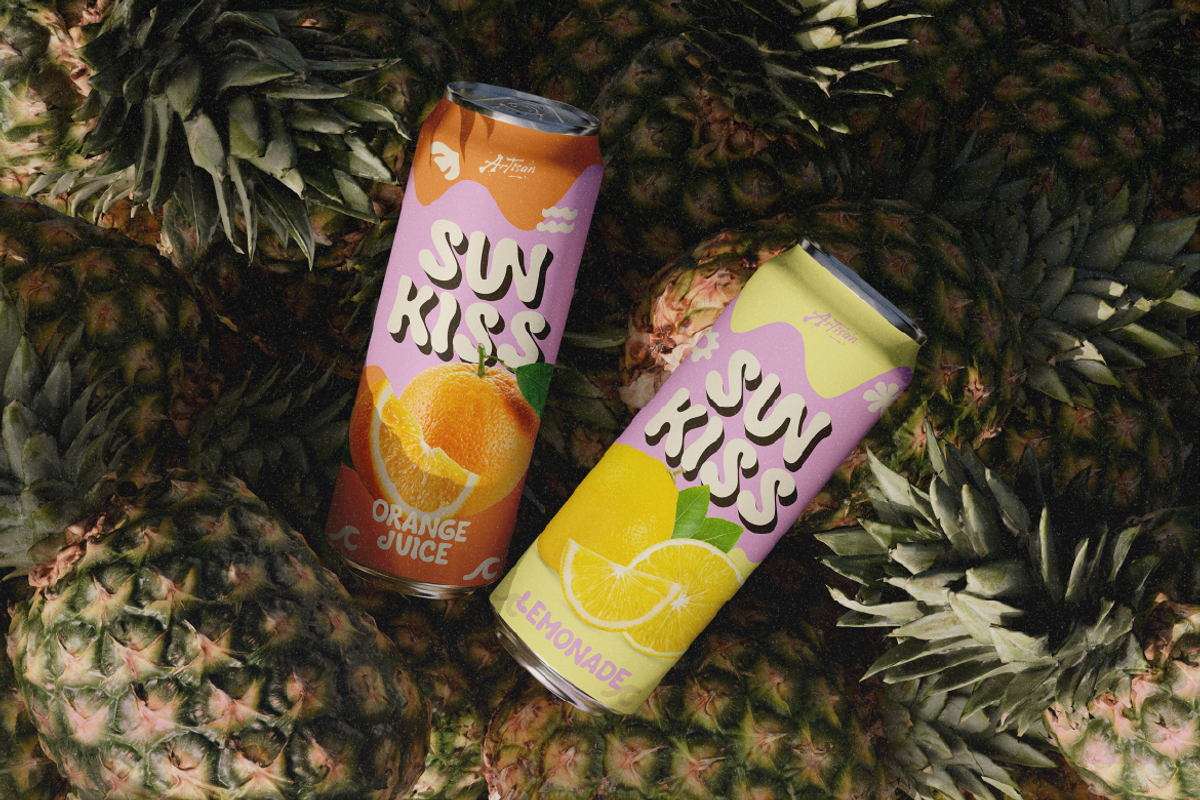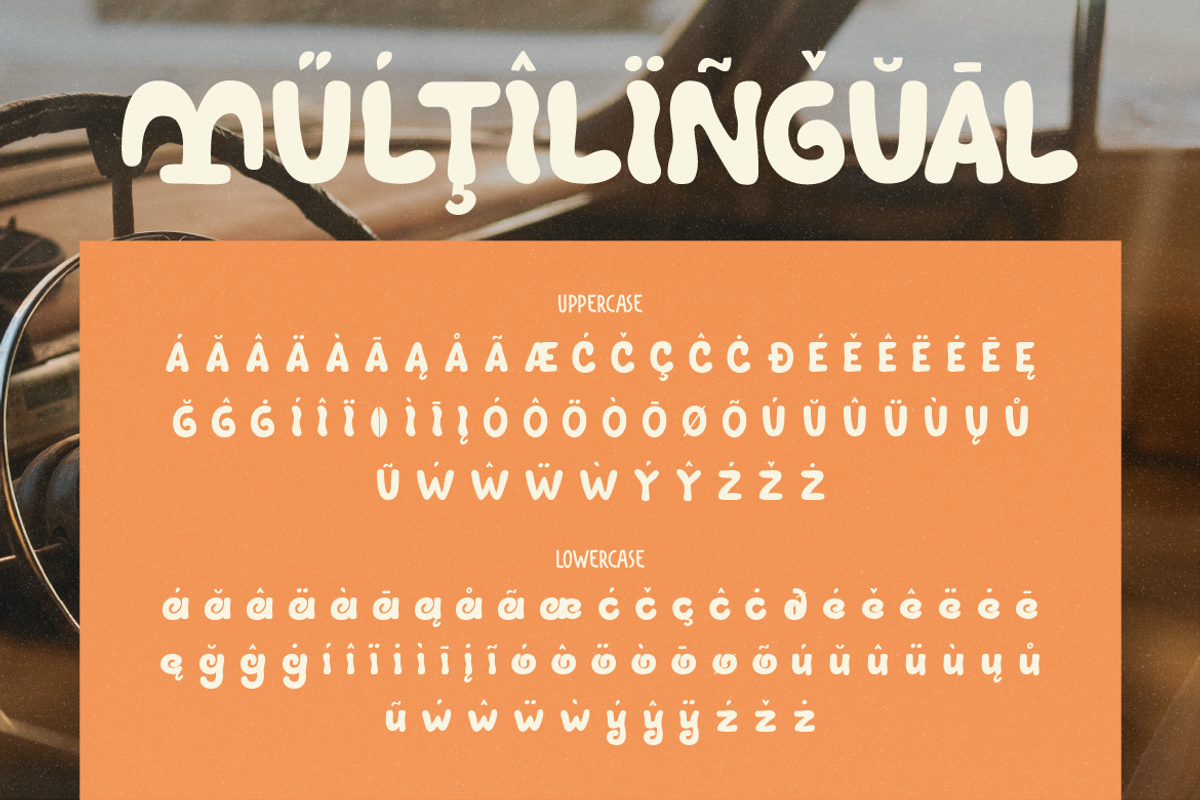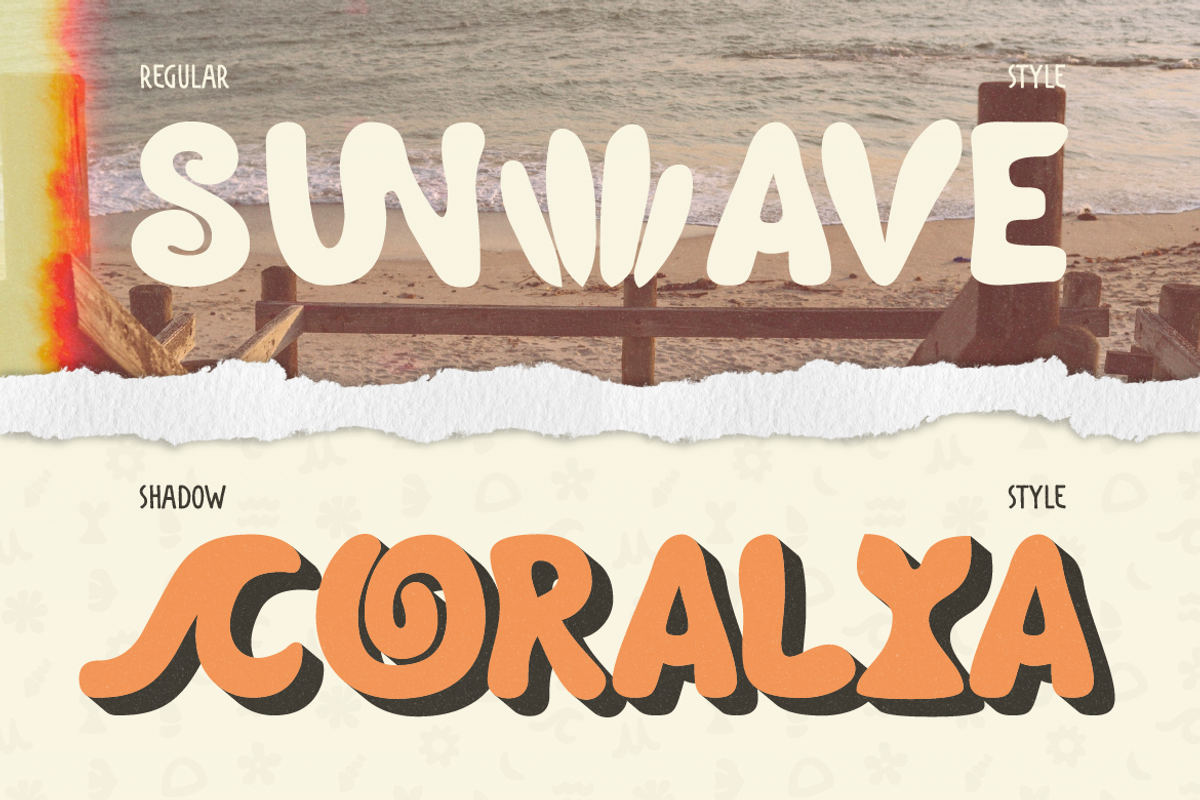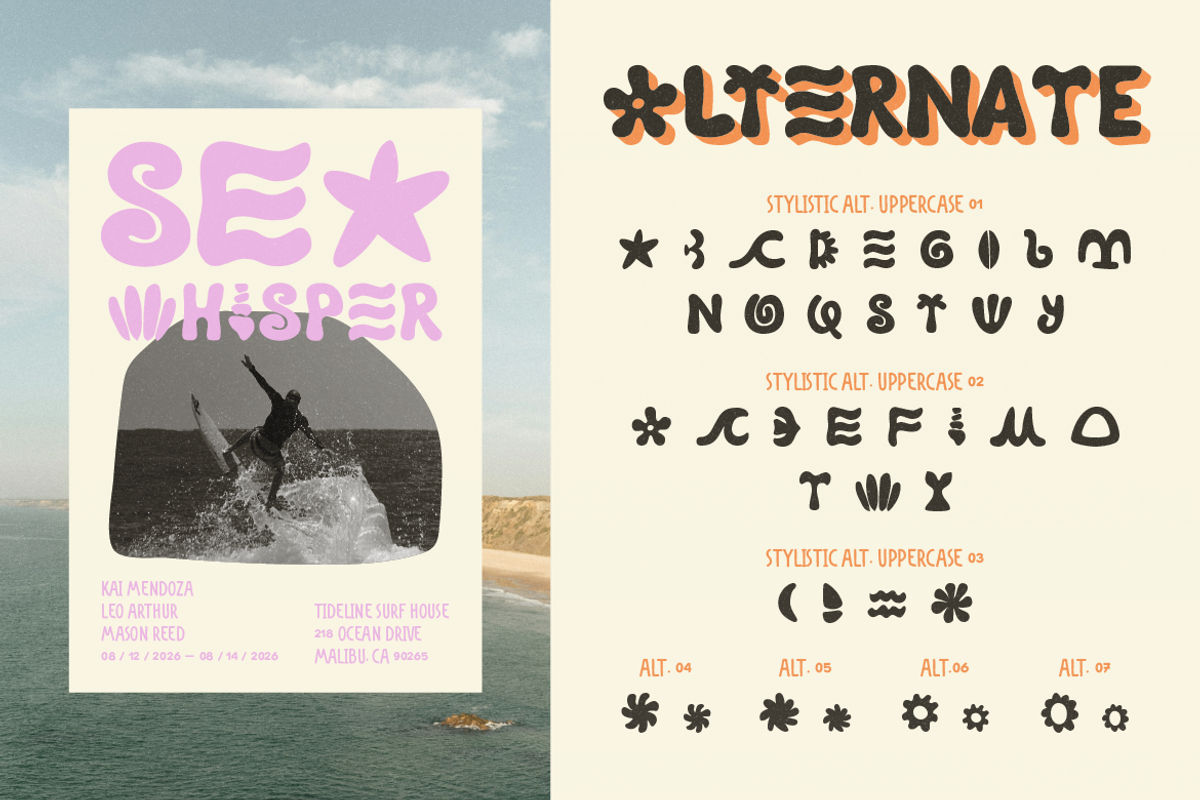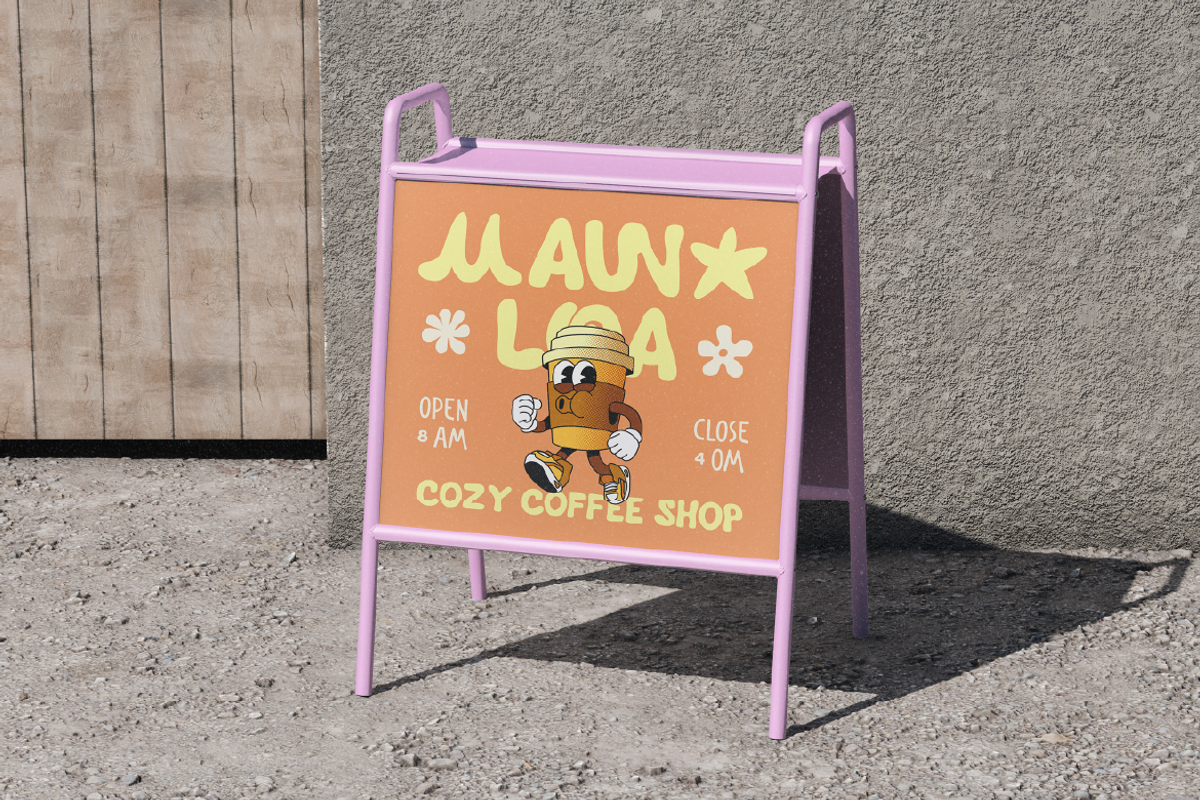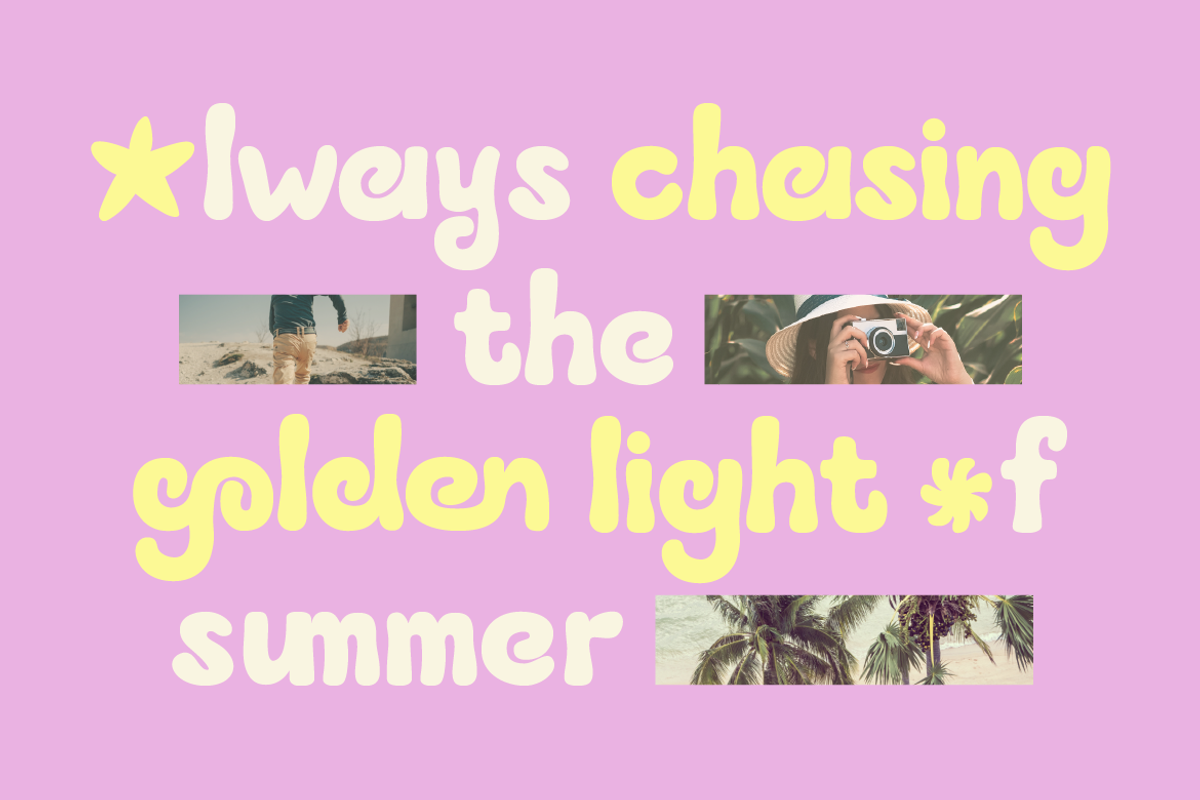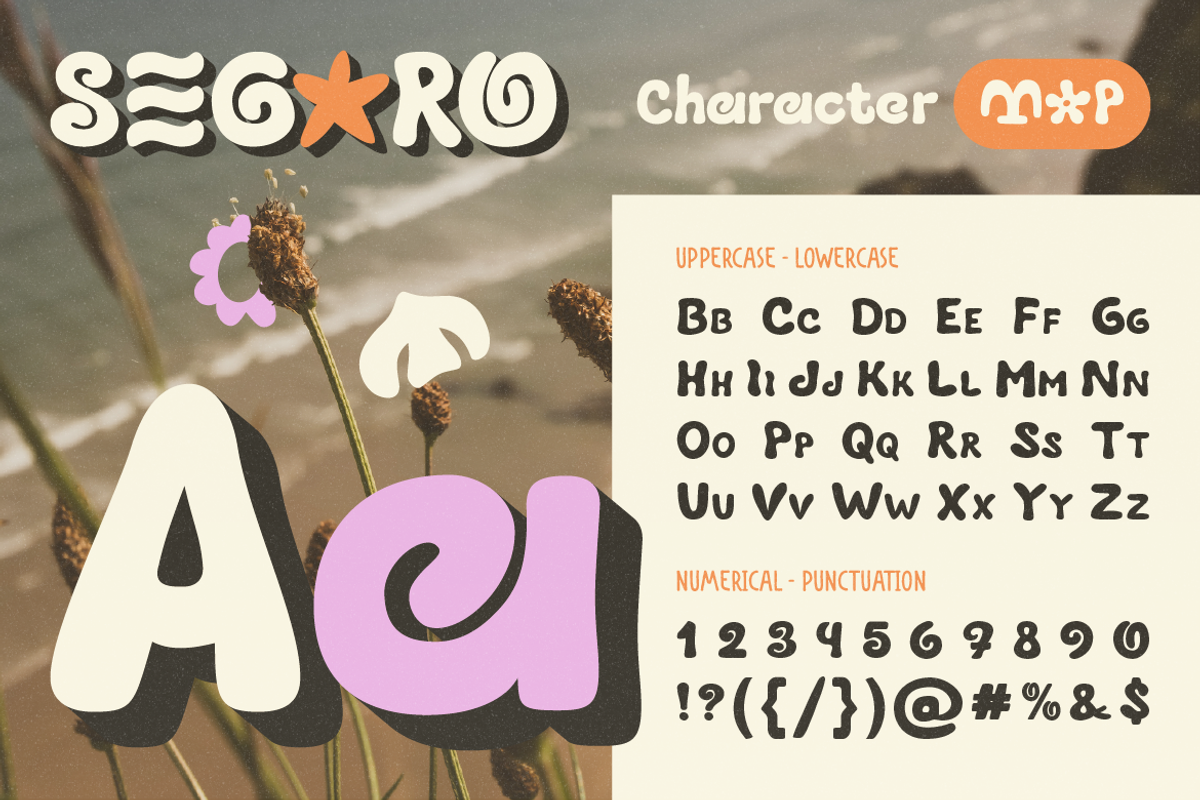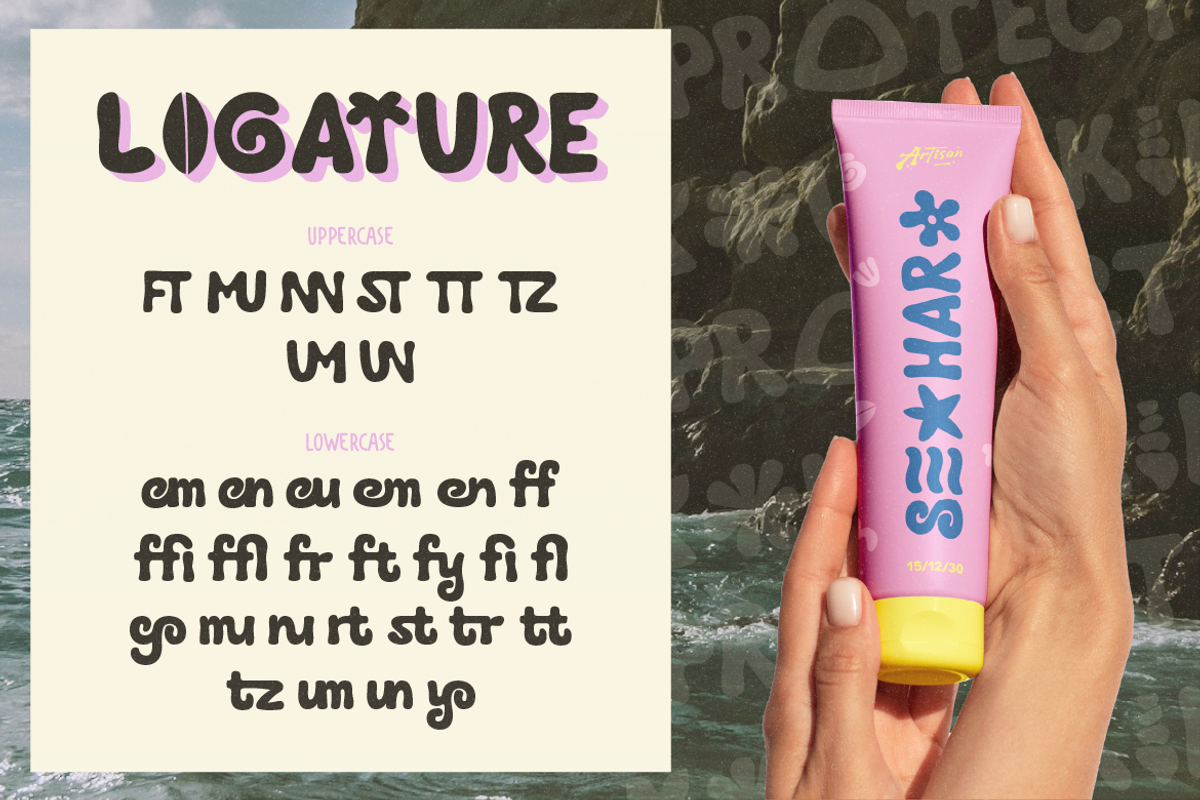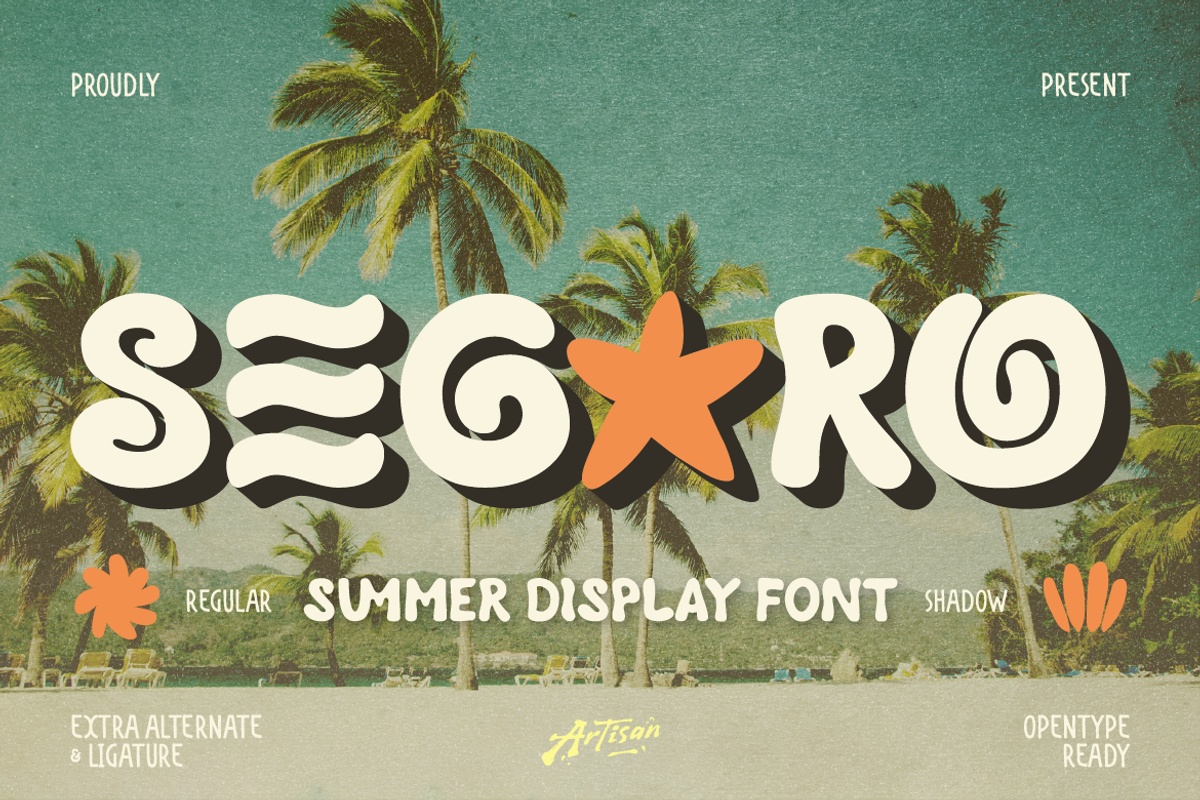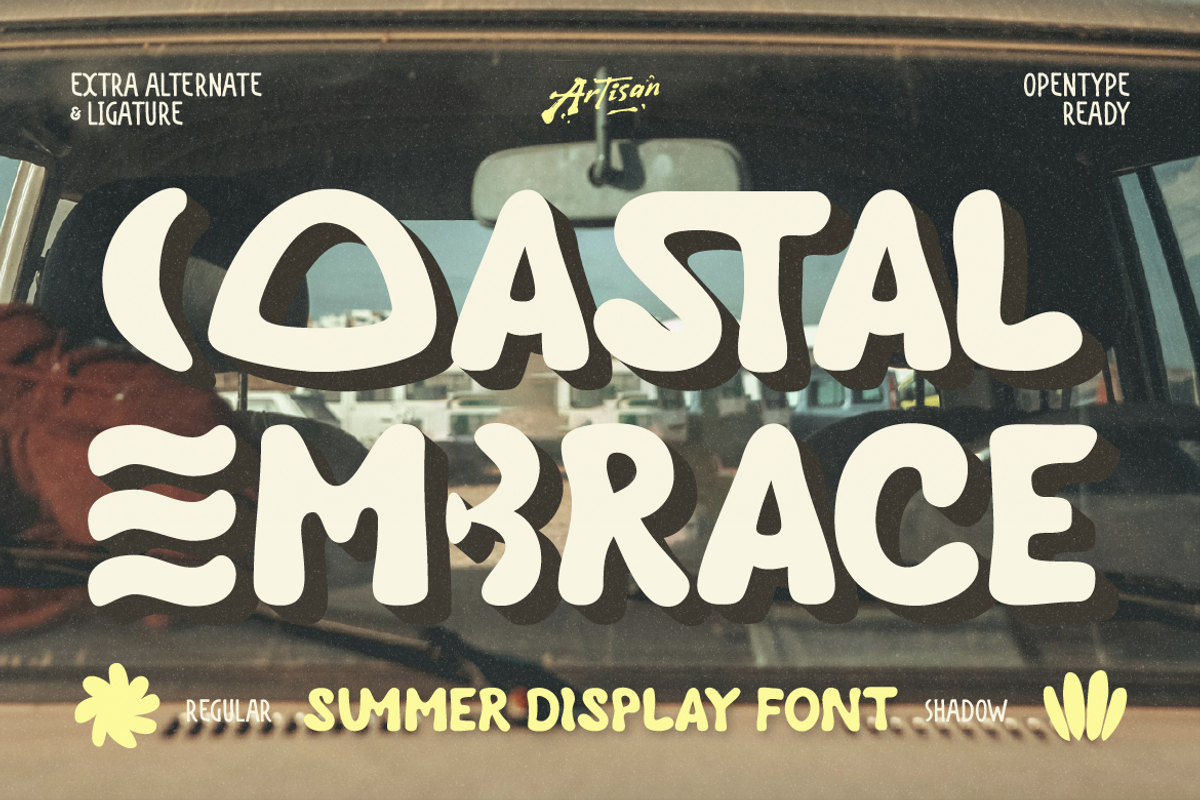
Segaro
Segaro is a fun and playful summer display font that brings instant sunshine to your designs. With its chunky, rounded shapes and groovy retro vibe, this font is perfect for creating cheerful and eye-catching visuals. Inspired by beach days, tropical vibes, and warm golden light, Segaro delivers a bold personality while staying friendly and easy to read. The soft curves and unique alternates make your typography feel lively, fresh, and full of character. This font comes with regular and shadow styles, plus plenty of alternates and ligatures to help you create more dynamic and custom-looking text. Whether you're working on branding or social media graphics, Segaro adds that perfect splash of summer energy. Perfect for summer branding, packaging design, posters & headlines, social media graphics, retro & tropical themes, fun merchandise.